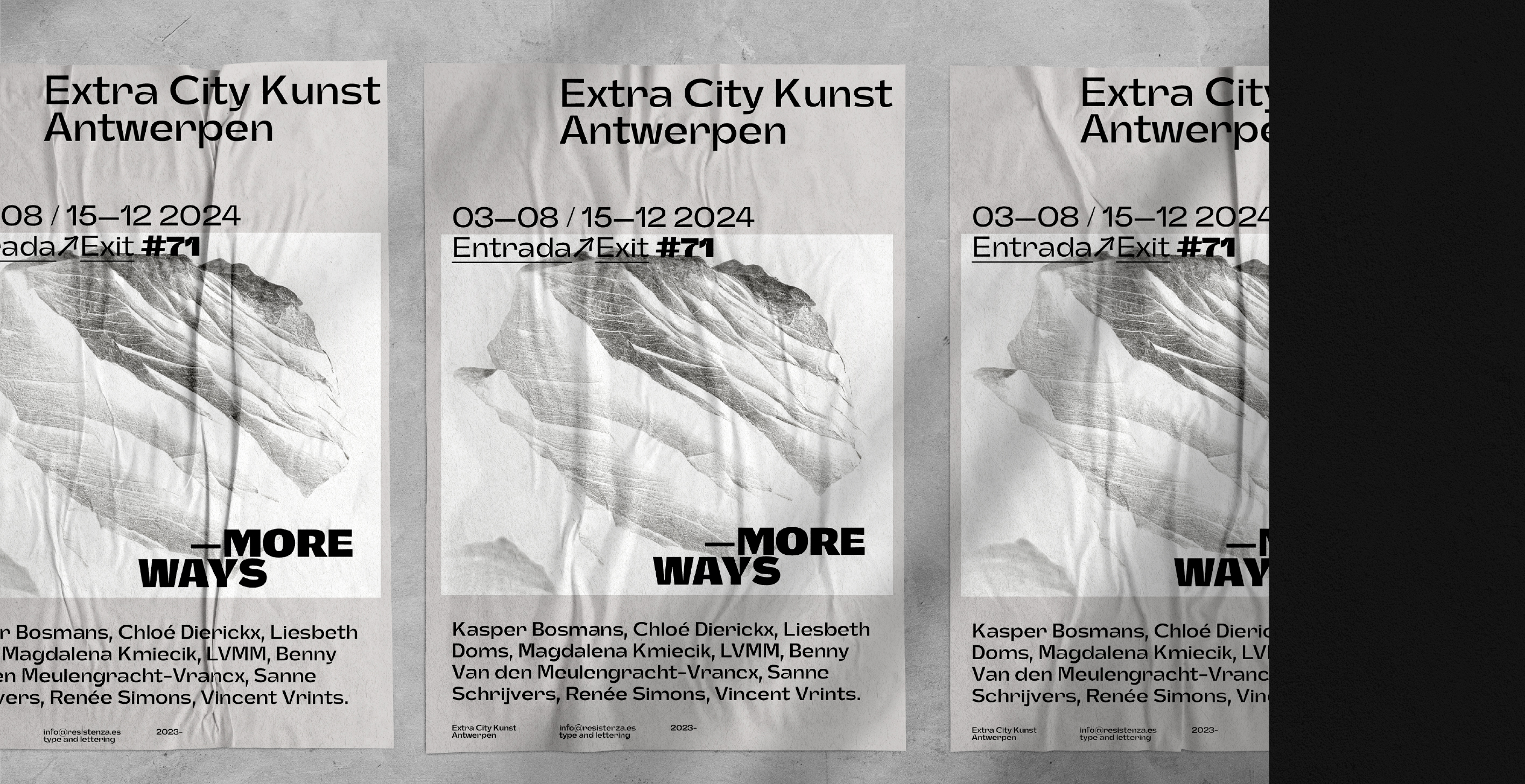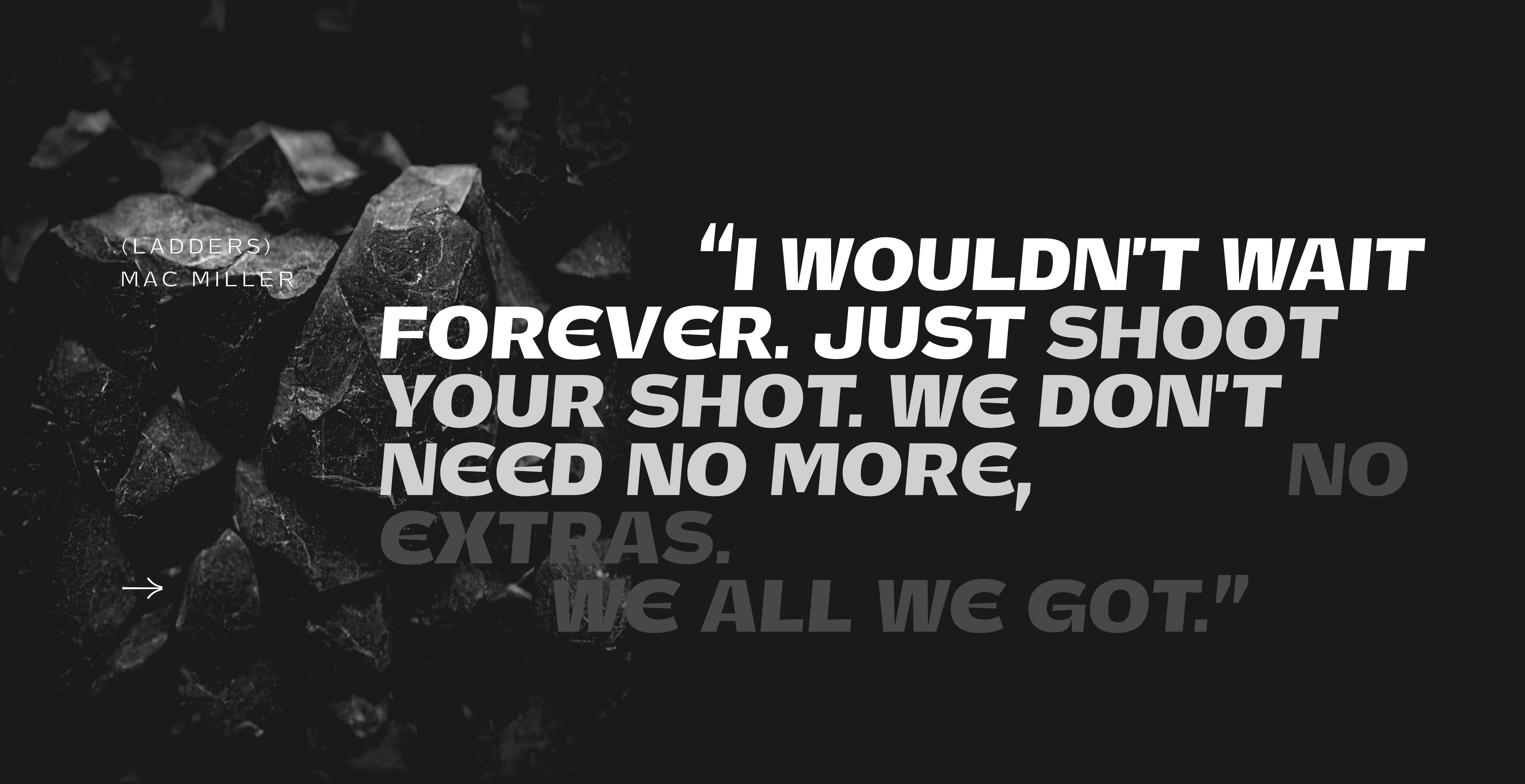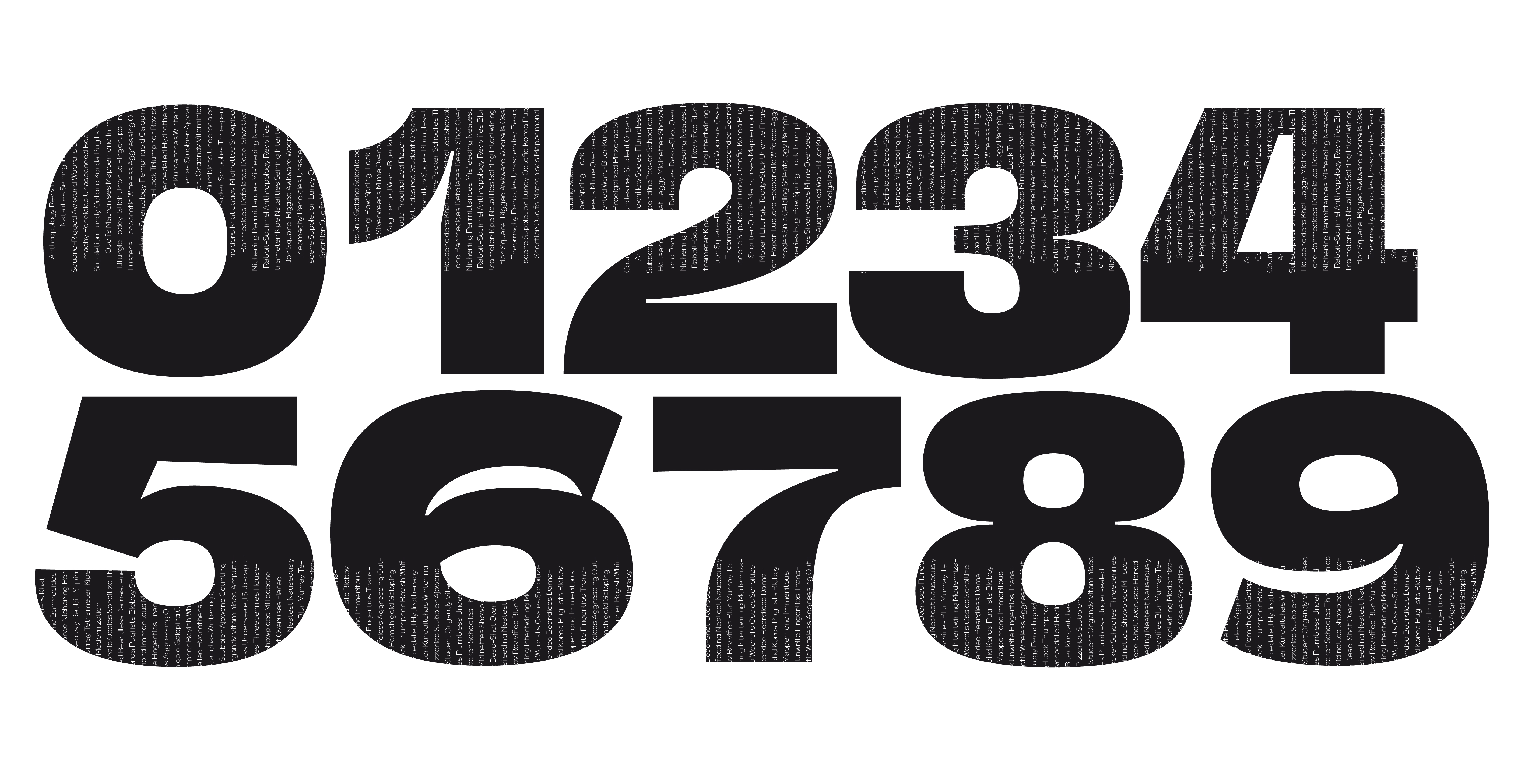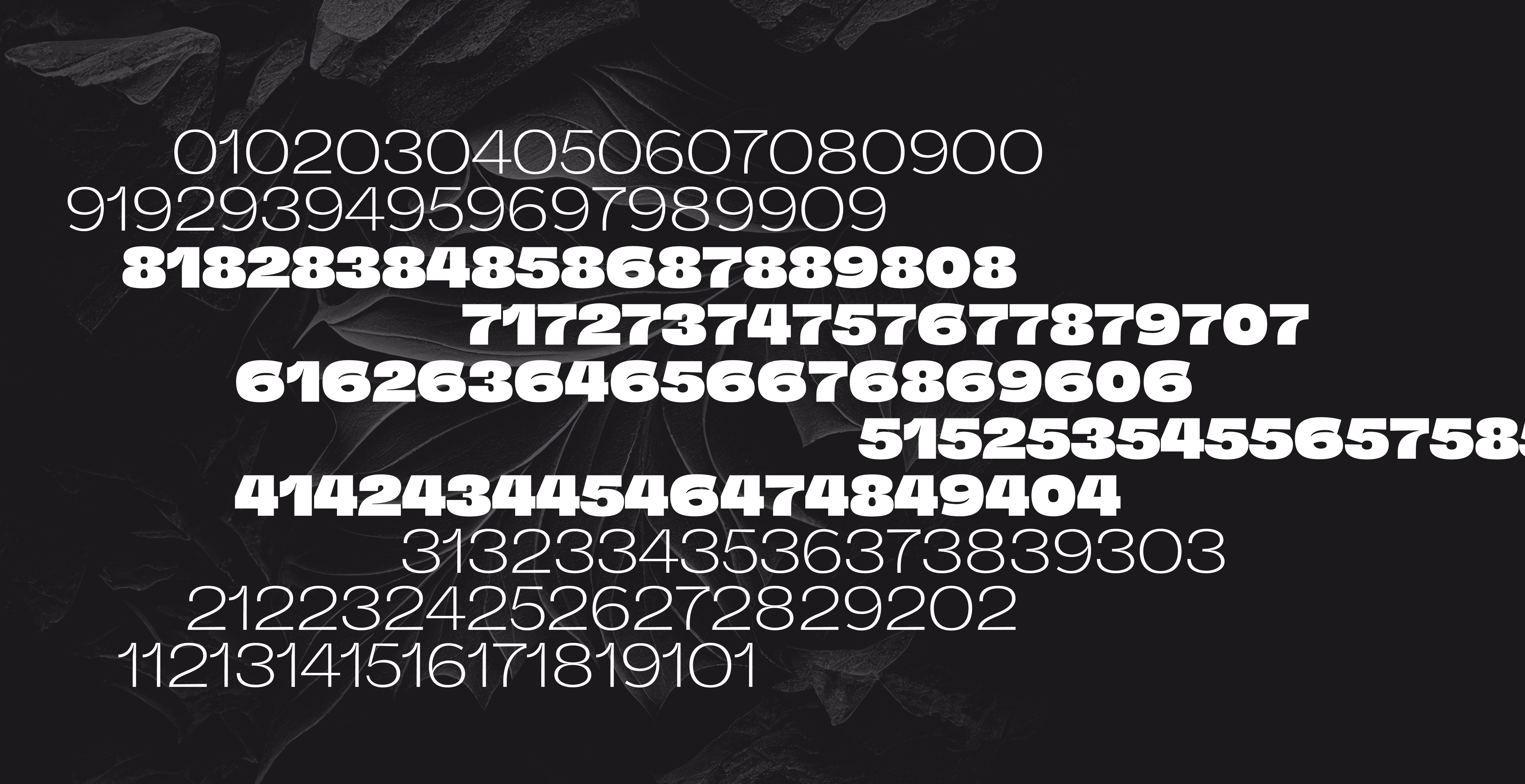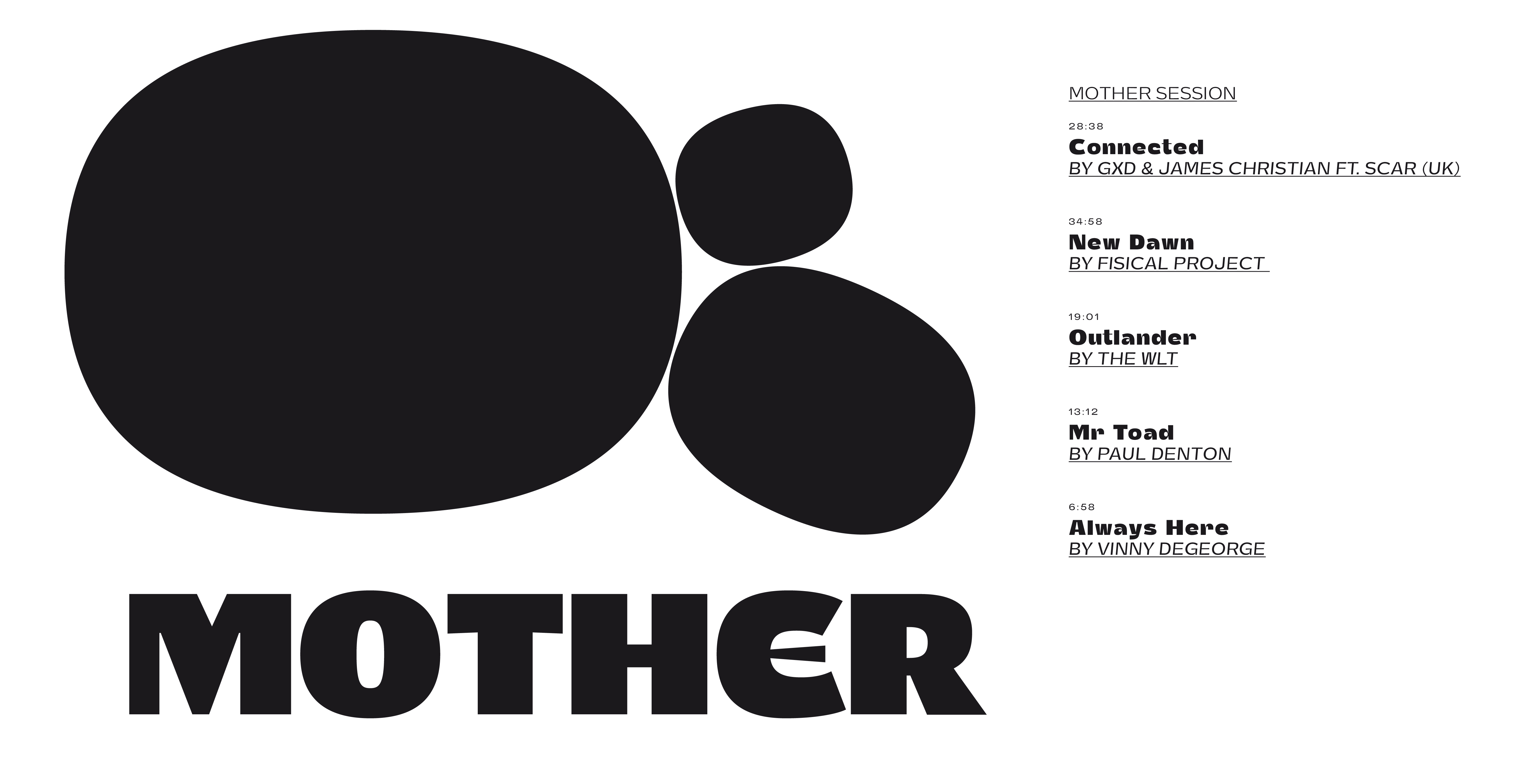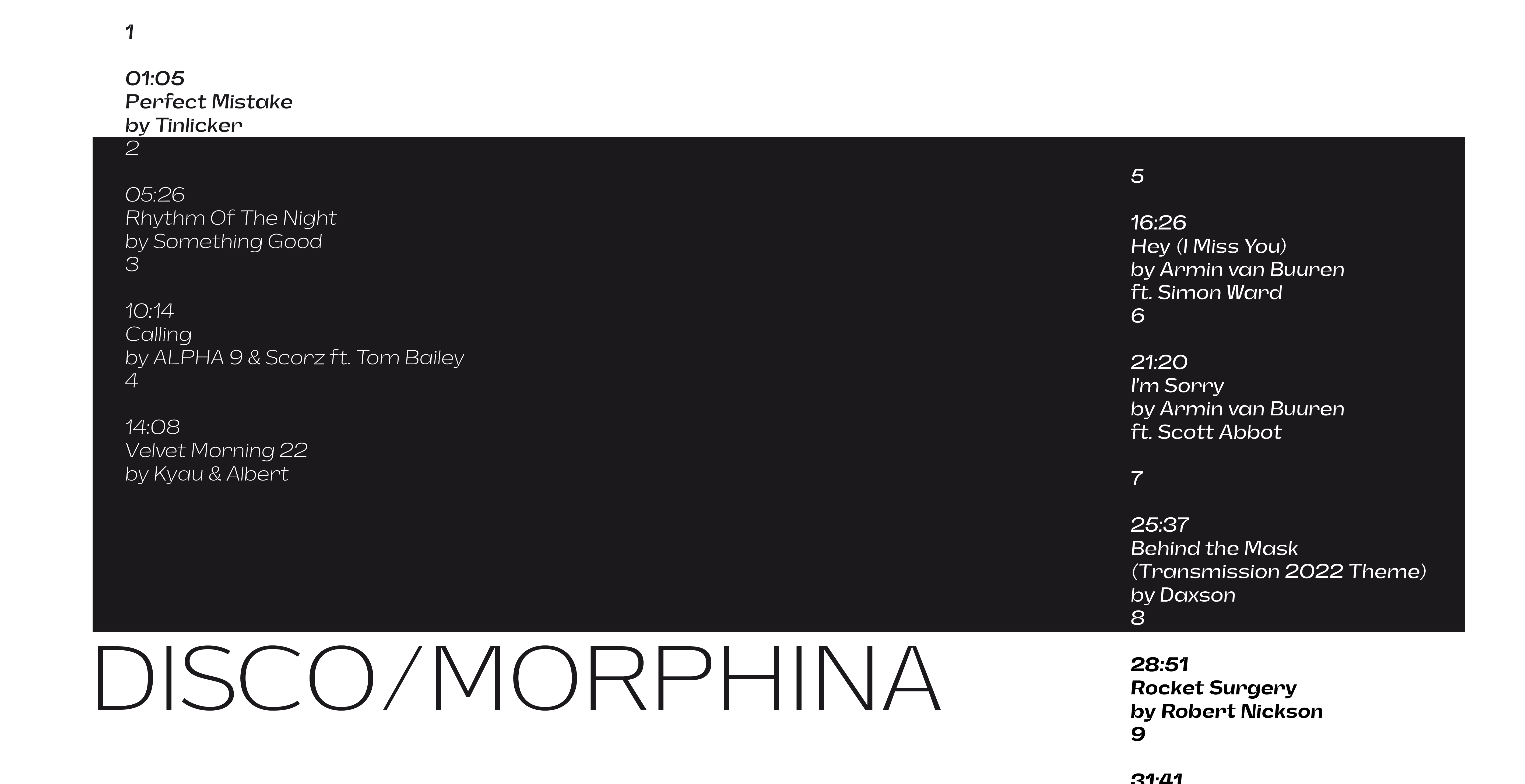
Totalblack
Thin Light Regular Medium SemiBold Bold Ultra Heavy Display Thin Italic Light Italic Italic Medium Italic SemiBold Italic Ultra Italic Heavy Italic Display ItalicResistenza's Sans Serif
Total Black
Designed by Resistenza Type FoundryBlack, Nero, Noir, say hello to our first Sans Serif, a modern font family inspired by classic grotesk typefaces. It features 9 weights, including Italics and a formidable Display version. It has a clean, neutral look that is perfect for all types of graphic design projects. Its ample character set, including Standard and Contextual Alternate, ensures excellent typesetting performance. Sans Serif Grotesk offers good readability and a strong, serious tone that is perfect for logos, magazines, and more. With versatile typographical tools, you'll have everything you need for any of your design projects.